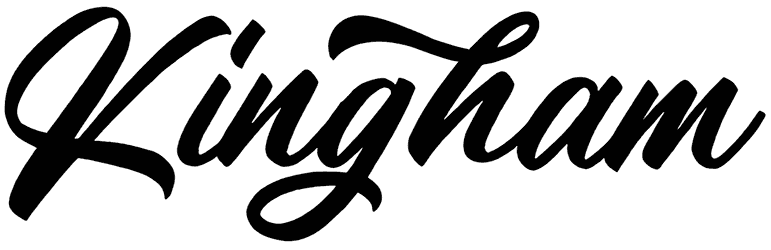
Kingham Font
Kingham is a dynamic script font that is compatible with a wide range of projects and can shine anywhere that needs some fancy shapes. This calligraphic font can add credibility, like a signature that a painter puts at the foot of his painting.
So, it’s excellent for branding, clothing design, titles, and advertisements, and can leave an unforgettable impression on websites. The different styles and relatively thick letters are what you need to overcome your competitors, even without some numbers.